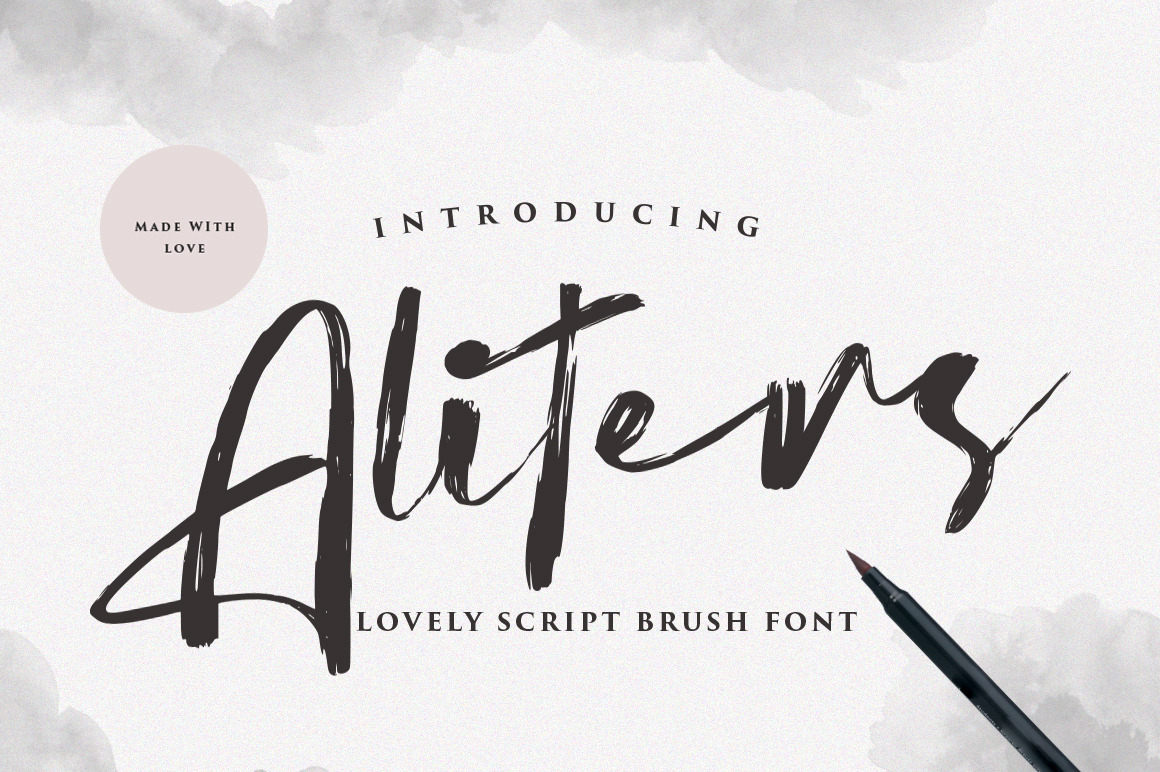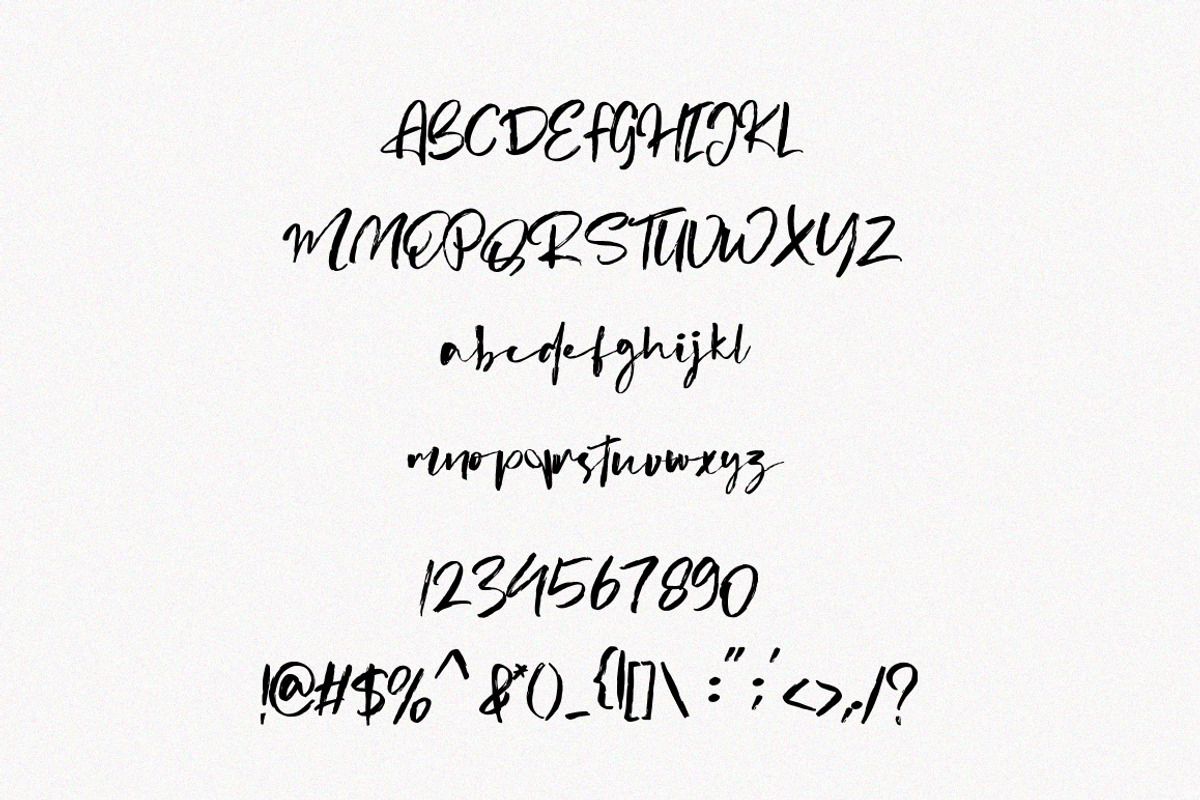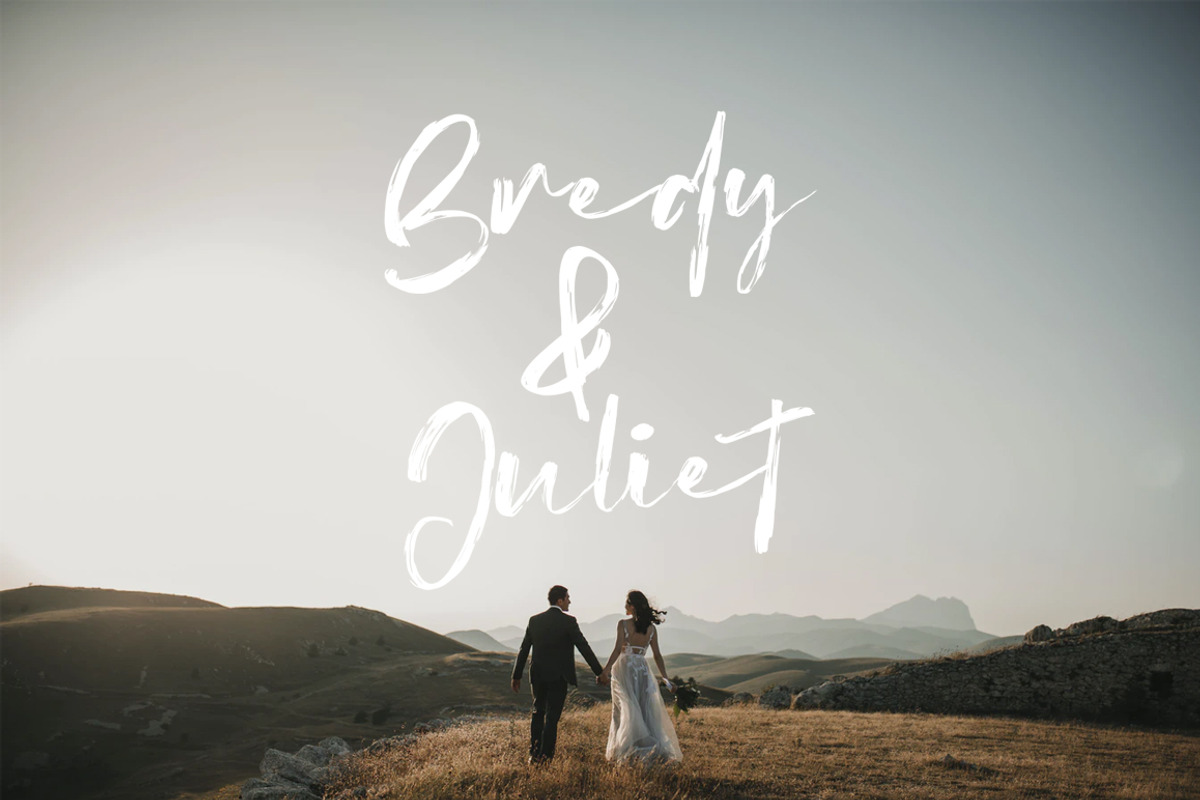
Aliters // Rough Script Font
Aliterts Script Font is minimalistic script with beautiful ligature and alternate font.
inspired by a luxury fashion. Contemporary handwriting fonts with ligatures and alternative styles ready to add unique look and bloom on your design
It easily cooperating together For Magazine, Movies, or Book Titles. For Photography, Wedding Invitation, Restaurant Menu or T-shirt Design. For Flyers, Banner Ads, web and printing. From Food and Fashion to a Cosmetics product
- Upper + Lowercase Letters
- Numbers + Punctuation
- Ligature Feature